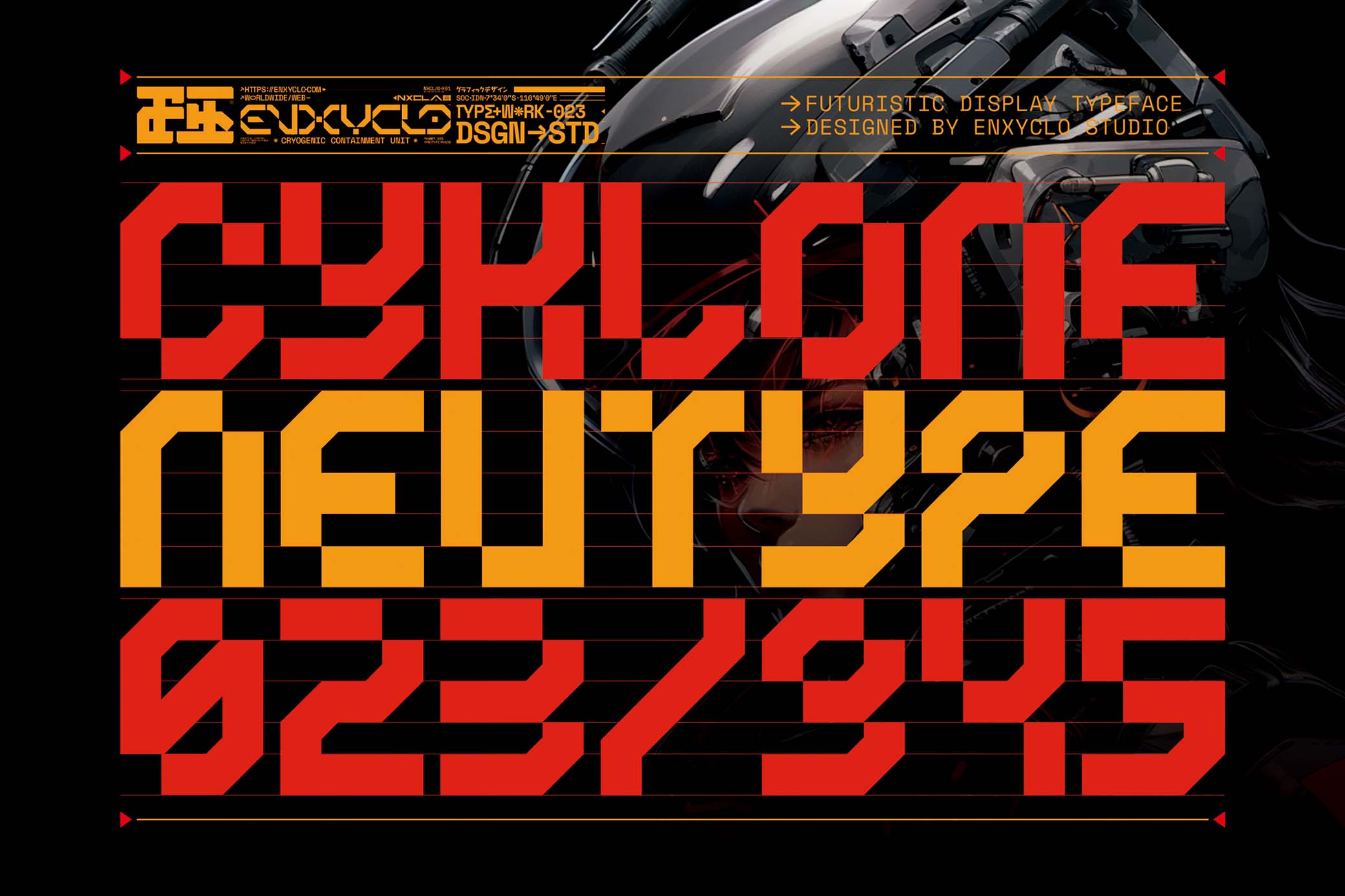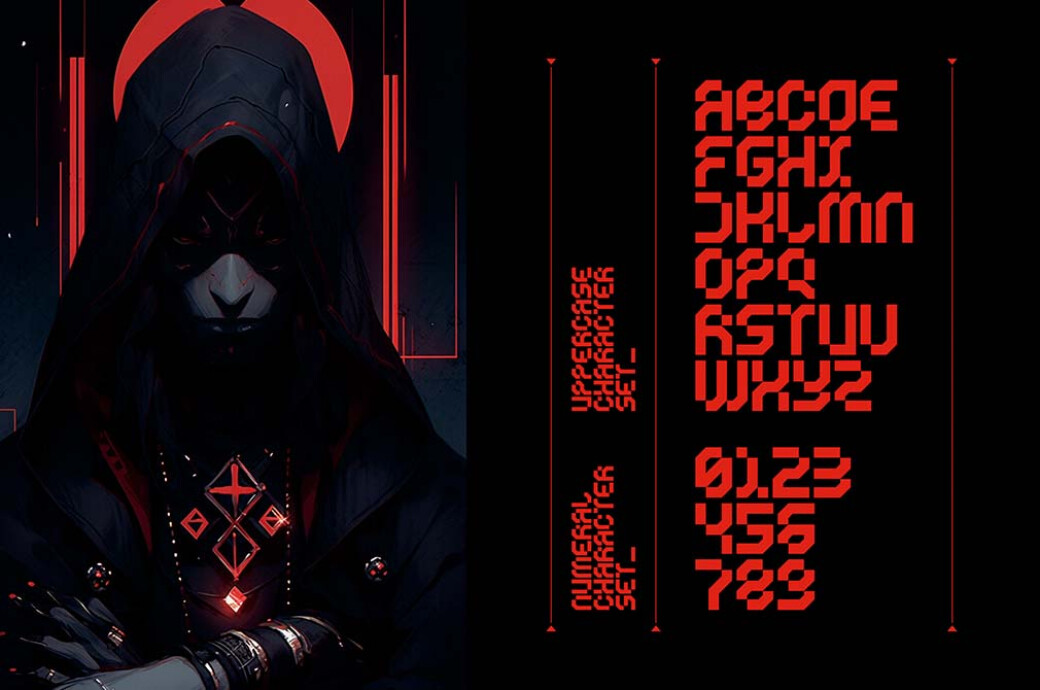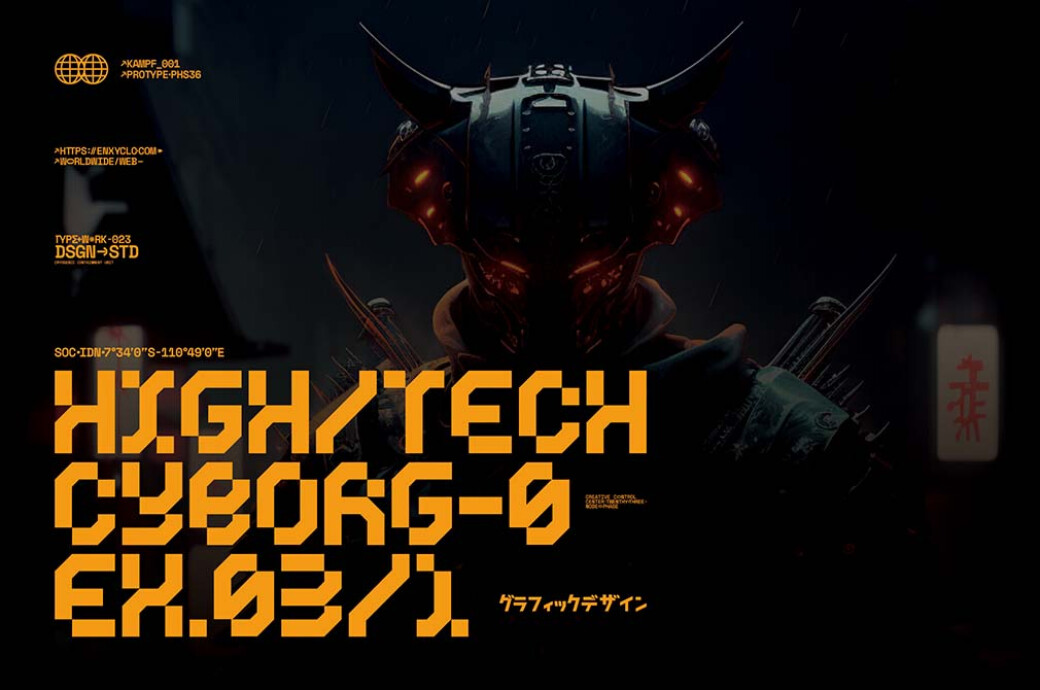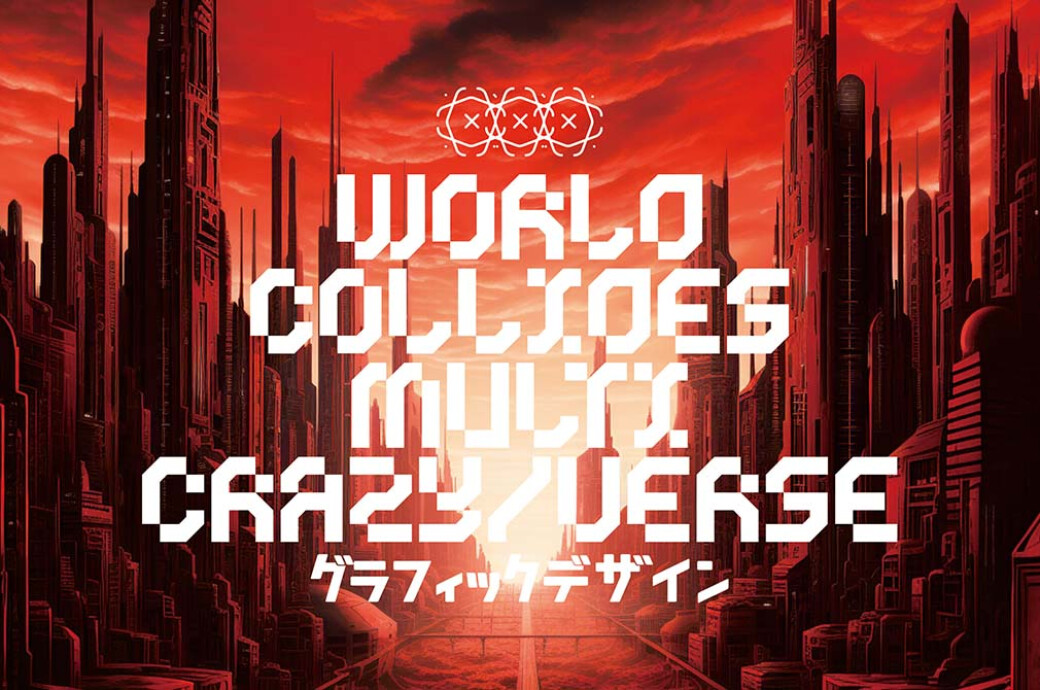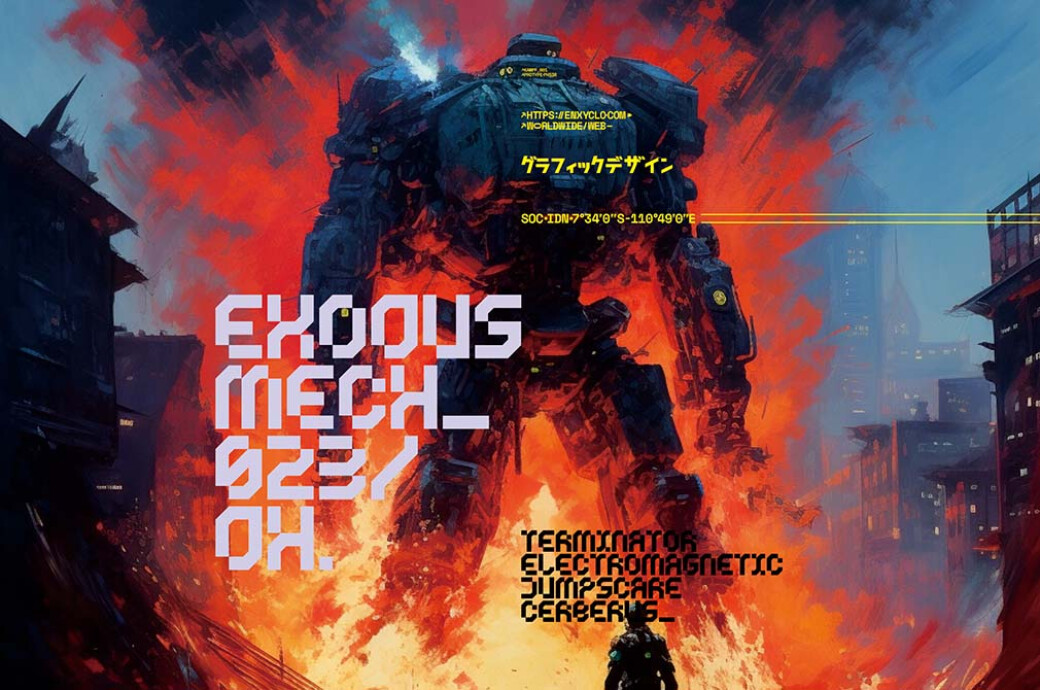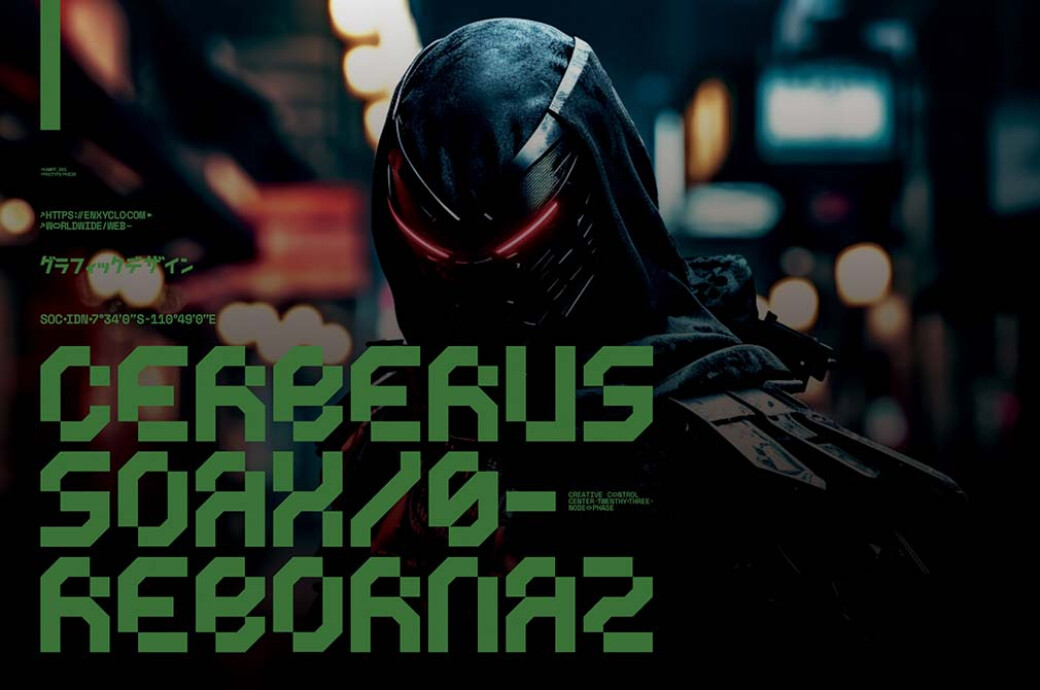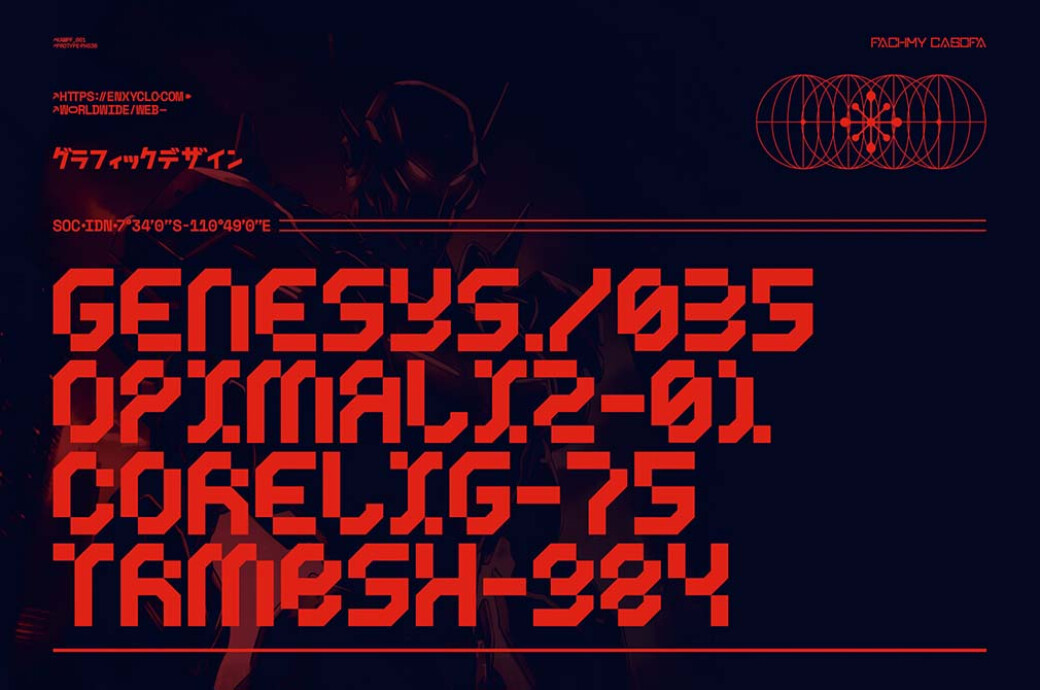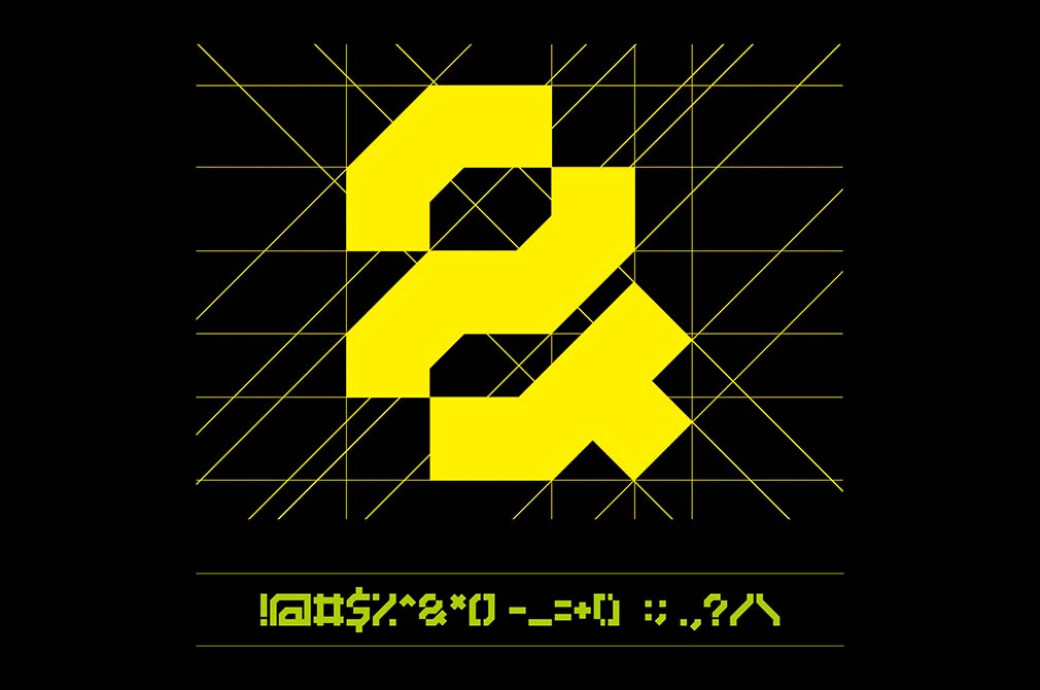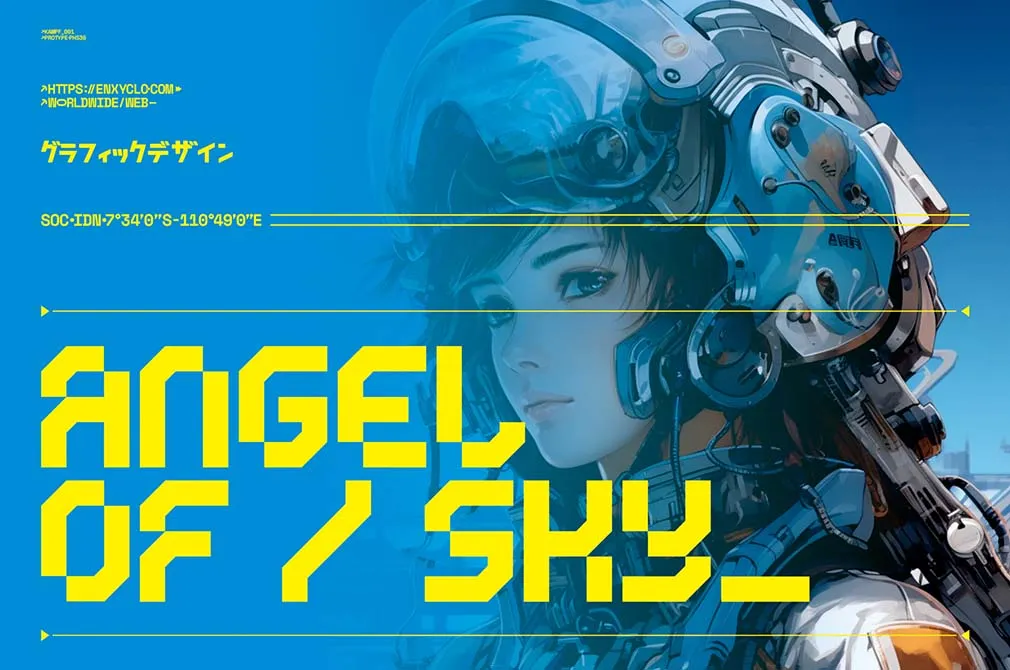
Cyklone — Futuristic Techno Cyberpunk Font
When you envision a font plucked straight from a technologically superior, far-off future, then the Cyklone font has got you covered.Cyklone is a marvel of future-forward typography: a geometric display that rejects traditional conventions with its inventive glyph designs (perhaps, brainstormed by a rogue AI or directly downloaded from a cybernetic mind). This font is a complete package of 91 glyphs: uppercases, numbers, punctuation, and symbols. Visualize it emblazoned across the side of a sleek, cutting-edge drone or as the focal point in the branding design for the next blockbuster cyberpunk movie.